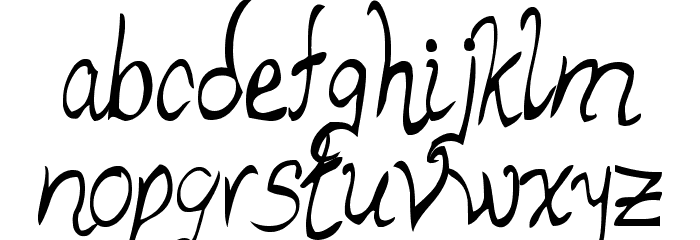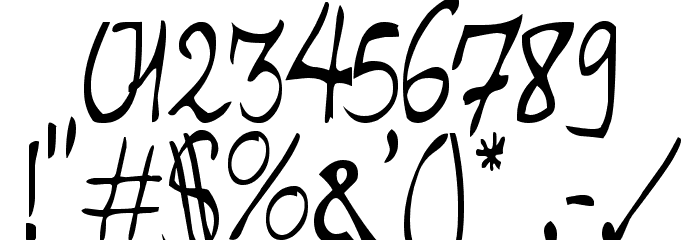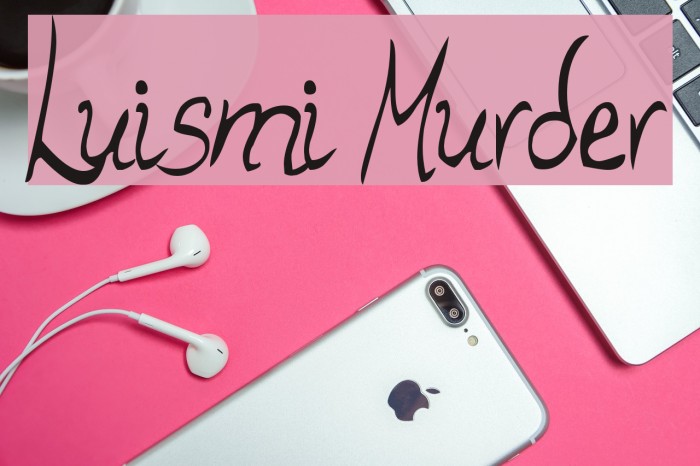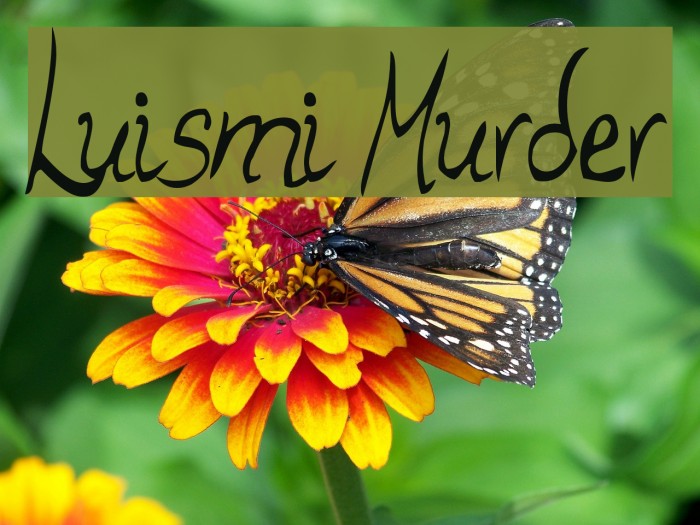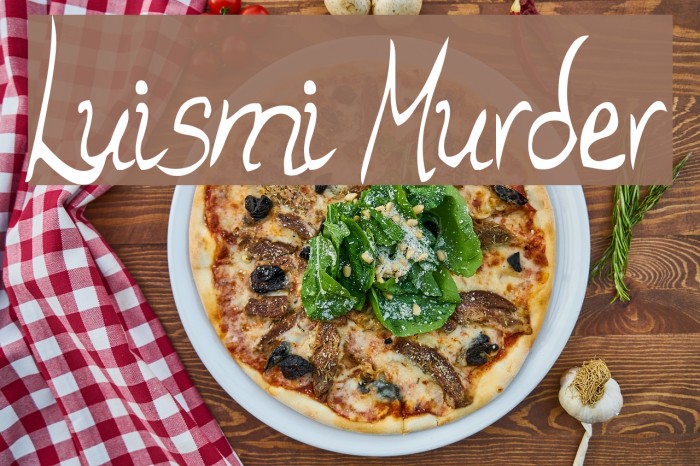
Luismi Murder Font
This font exudes a dynamic and edgy personality, characterized by its sharp, angular strokes and fluid, handwritten style. The uppercase letters are tall and slender, with a slight slant that adds a sense of motion and urgency. The lowercase letters maintain this fluidity, with some characters featuring unique loops and curves that enhance the font's expressive nature. Numbers are bold and distinct, ensuring readability while maintaining the overall aesthetic. Special characters are creatively designed, adding to the font's versatility. This font is ideal for projects that require a bold, artistic touch, making it perfect for creative branding, edgy posters, or unique invitations.
A dynamic, edgy handwritten font with sharp, angular strokes.
- Font: Luismi Murder
by JuanCasco - Weight: Regular
- Proposed Projects: Creative branding, edgy posters, unique invitations, artistic designs.
- Category: Handwritten
- Use Case: Logos, Headlines, Artistic designs